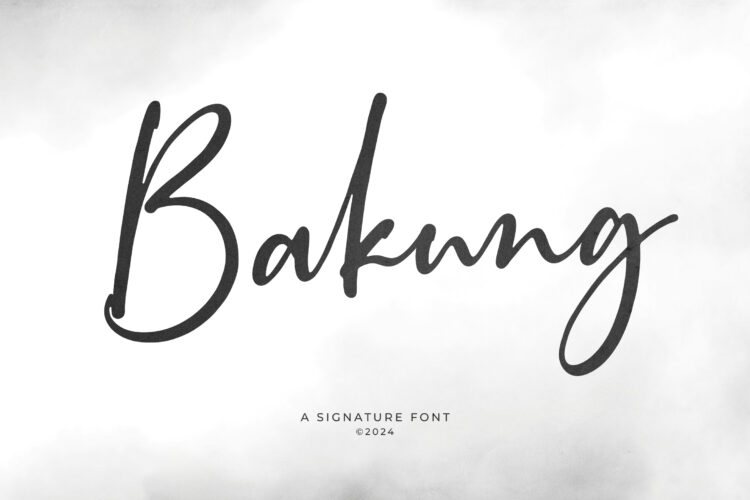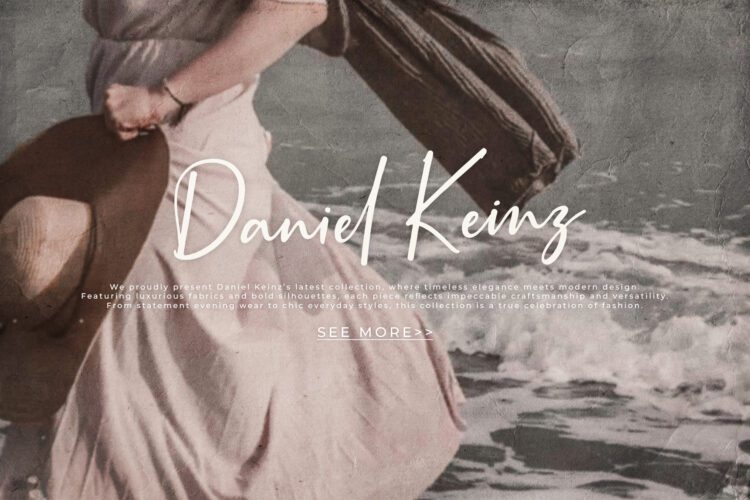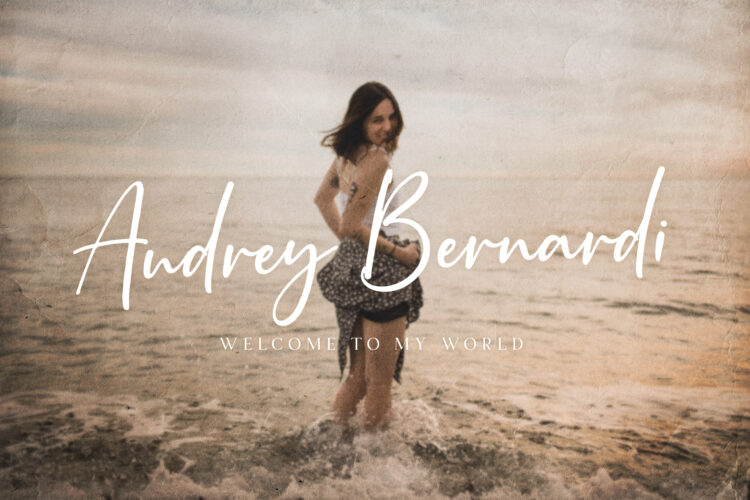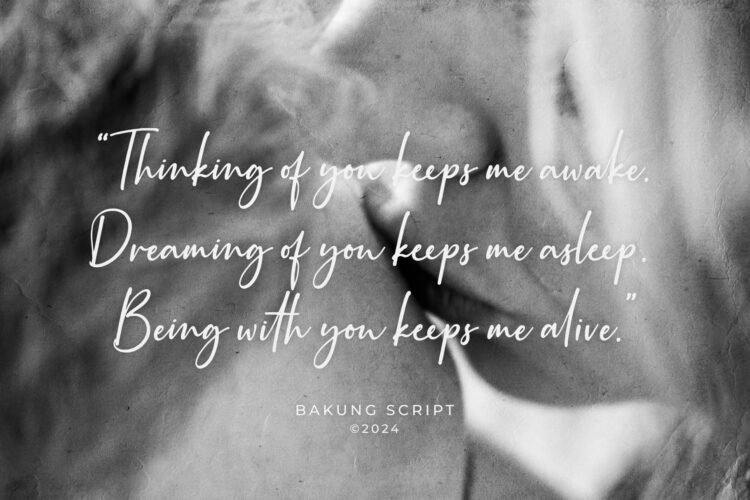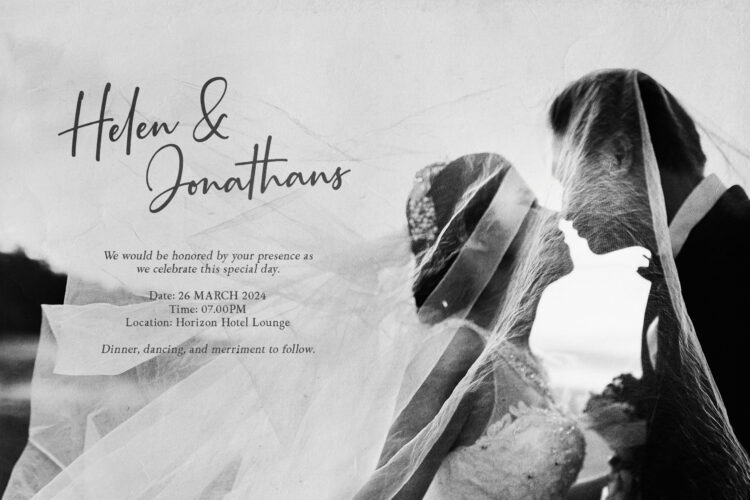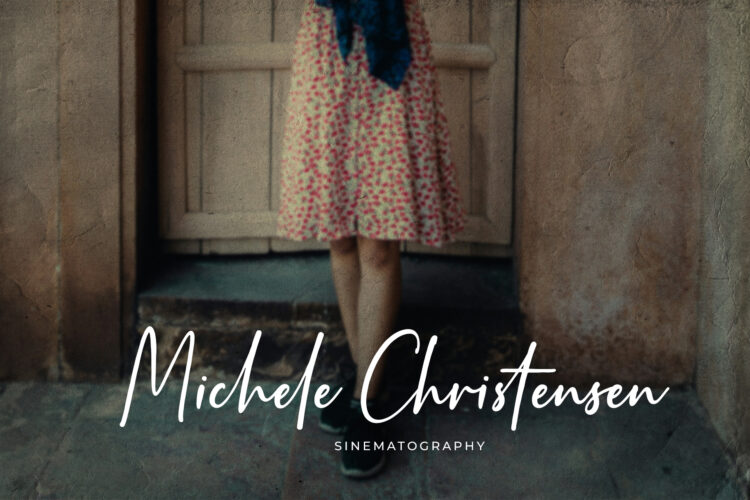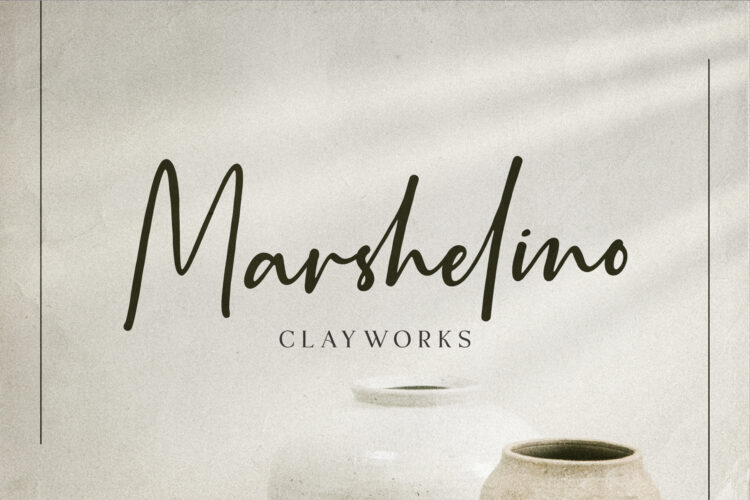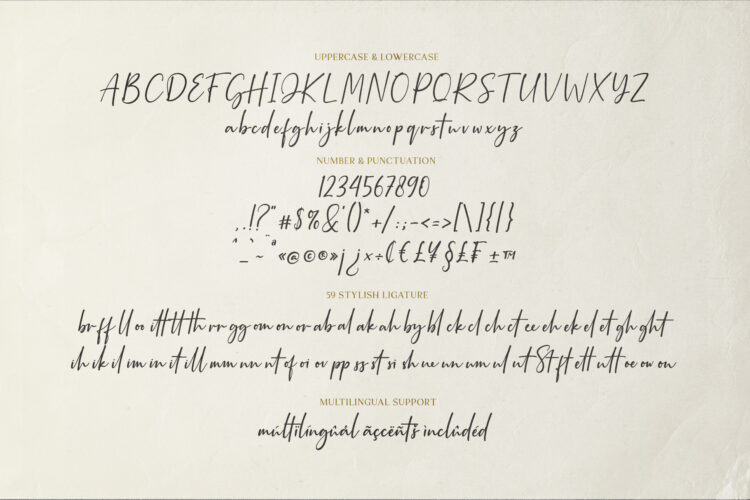
Bakung is a modern and elegant signature font designed to bring a personal, handwritten touch to any project.
With its natural strokes and fluid movement, Bakung mimics the look of real ink on paper, making it perfect for branding, wedding invitations, logos, personal blogs, and luxury packaging.
This font includes both uppercase and lowercase characters, a full set of punctuation and numerals, multilingual accents, and an impressive 59 stylistic ligatures for a smoother and more organic writing experience.
Whether you’re a designer aiming to give your work a classy and personal flair or a business looking to elevate your brand identity, Bakung is your go-to font.
Its elegant lines and signature-style forms make it highly versatile for both digital and print formats.
Bakung – Signature Font